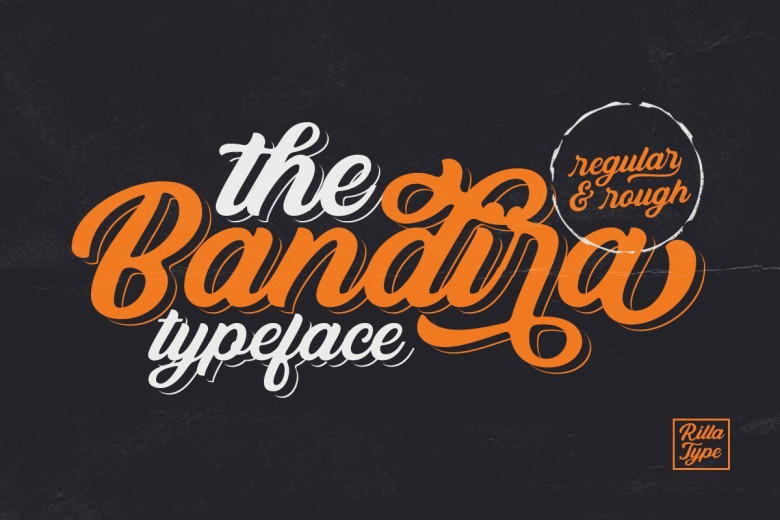
Bandira Script Typeface Free
Bandira Script Typeface is handwritten stylish copperplate calligraphy fonts, combines from copperplate to contemporary typeface with a dancing baseline, classic and elegant touch. Can be used for various purposes. such as headings, signature, logos, wedding invitation, t-shirt, letterhead, signage, lable, news, posters, badges etc.
This typeface is comes in uppercase, lowercase, punctuations, symbols & numerals, 06 stylistic set alternate, ligatures, swash etc also support multilingual and already PUA encoded. This font is free for PERSONAL USE. Link to purchase full version and commercial license: HERE